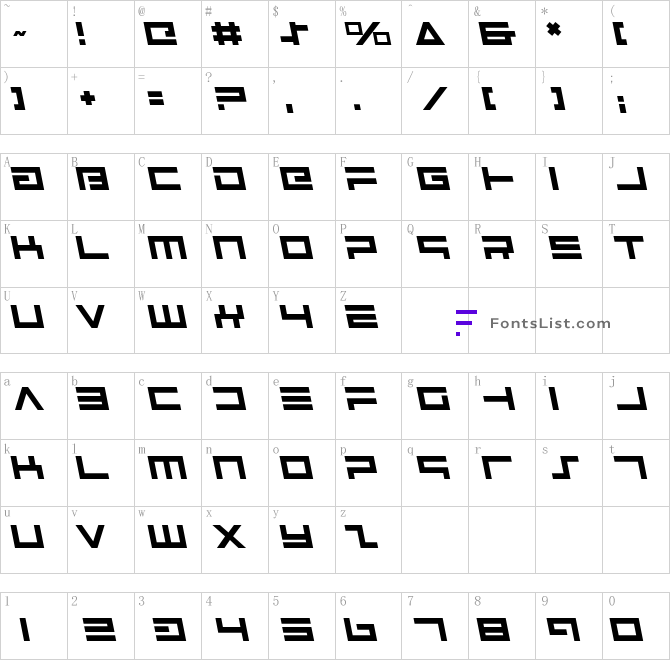
• Font Name:Avenger Leftalic
• Subfamily:Avenger Leftalic: 2008
• Full Name:Avenger Leftalic
Avenger-Leftalic-copy-1-.ttf is a very beautiful artistic font, Avenger-Leftalic-copy-1-.ttf is widely used in the design and printing of various books and pictures,Avenger-Leftalic-copy-1-.ttf has a strong visual impact,Avenger-Leftalic-copy-1-.ttf is a commonly used font in newspapers, magazines and books, and is used in posters, e-commerce Poster design, store design, logo design, font design and other fields.Avenger-Leftalic-copy-1-.